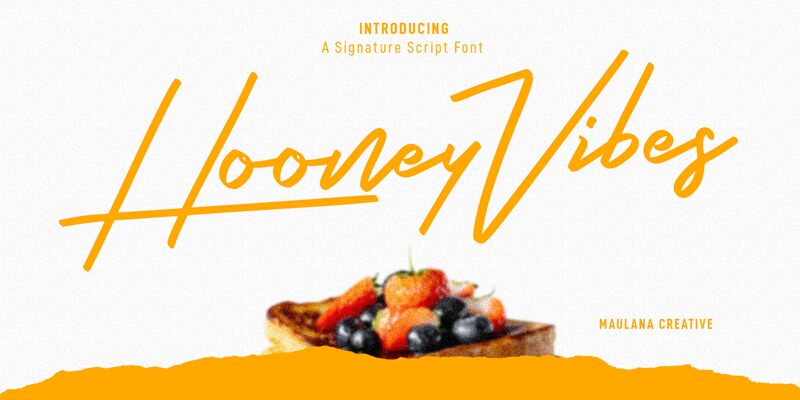
Hooney Vibes Free Regular
Hooney Vibes is a charming handwritten font designed by Maulana Creative. This light-weight typeface adds a touch of whimsy and personality to any project, whether it be a greeting card, social media post, or branding materials for a boutique business. Its playful style is perfect for children's books or invitations to fun events like birthday parties or baby showers. Hooney Vibes exudes warmth and friendliness that makes it ideal for creating personal blog posts or journal entries. With its unique handwritten style, this font is sure to leave your audience with a lasting impression.